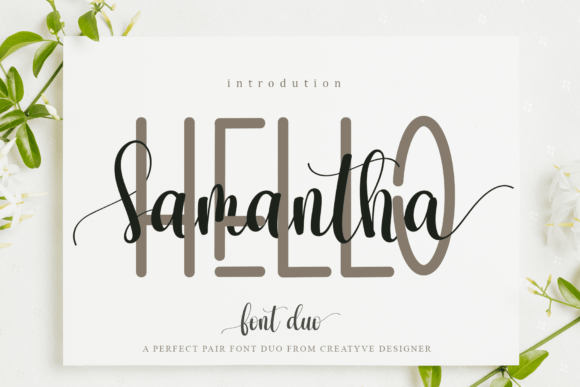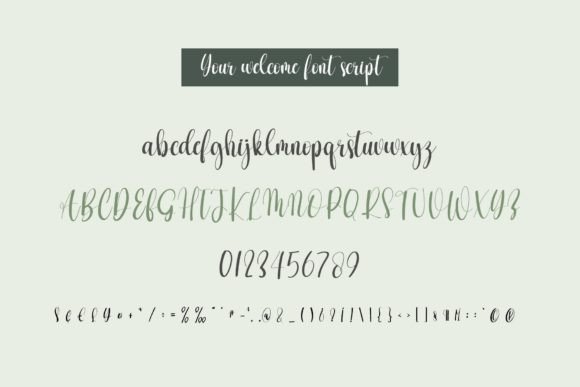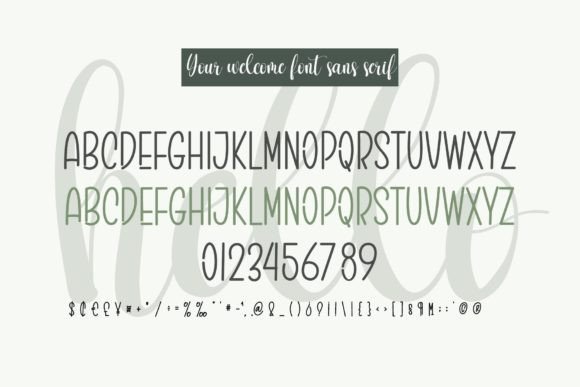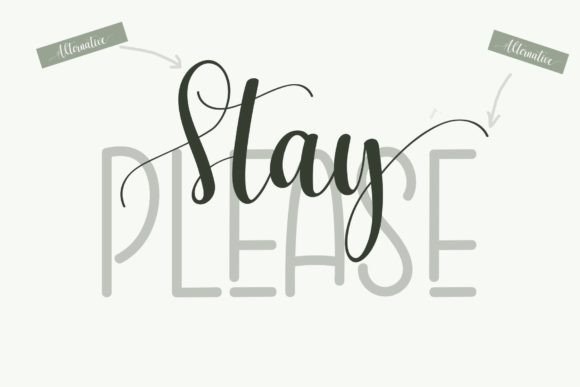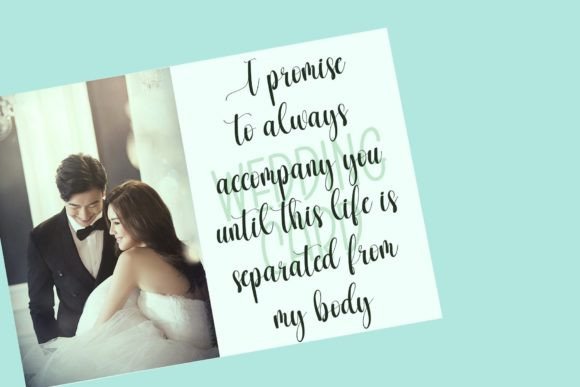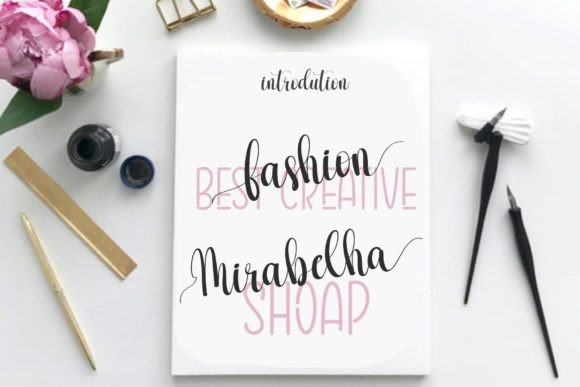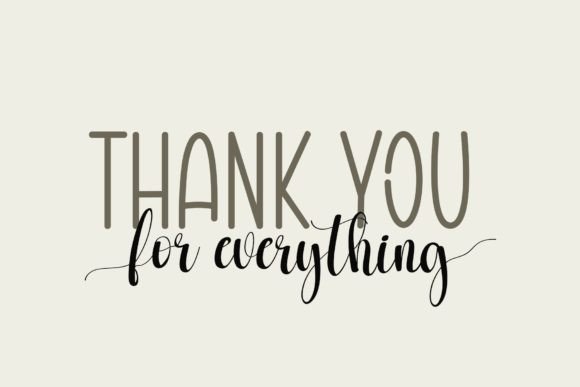
Hello Samantha Font
“Hello Samantha” is introduced as a stylish and delicate duo font, featuring both a script and a sans-serif style. This font is described as versatile and suitable for a wide spectrum of applications, promising a romantic touch to each creative project, from greeting cards to headlines.
The key elements highlighted in the description include the script and sans-serif combination, offering a dynamic duo that can cater to different design needs. The term “stylish and delicate” suggests an aesthetic quality that can add sophistication to various applications.
In summary, “Hello Samantha” is positioned as a versatile duo font, combining script and sans-serif styles to bring a stylish and delicate touch to a wide range of creative projects. Its romantic appeal and PUA encoding make it suitable for applications such as greeting cards, headlines, and more, offering a comprehensive solution for diverse design needs.